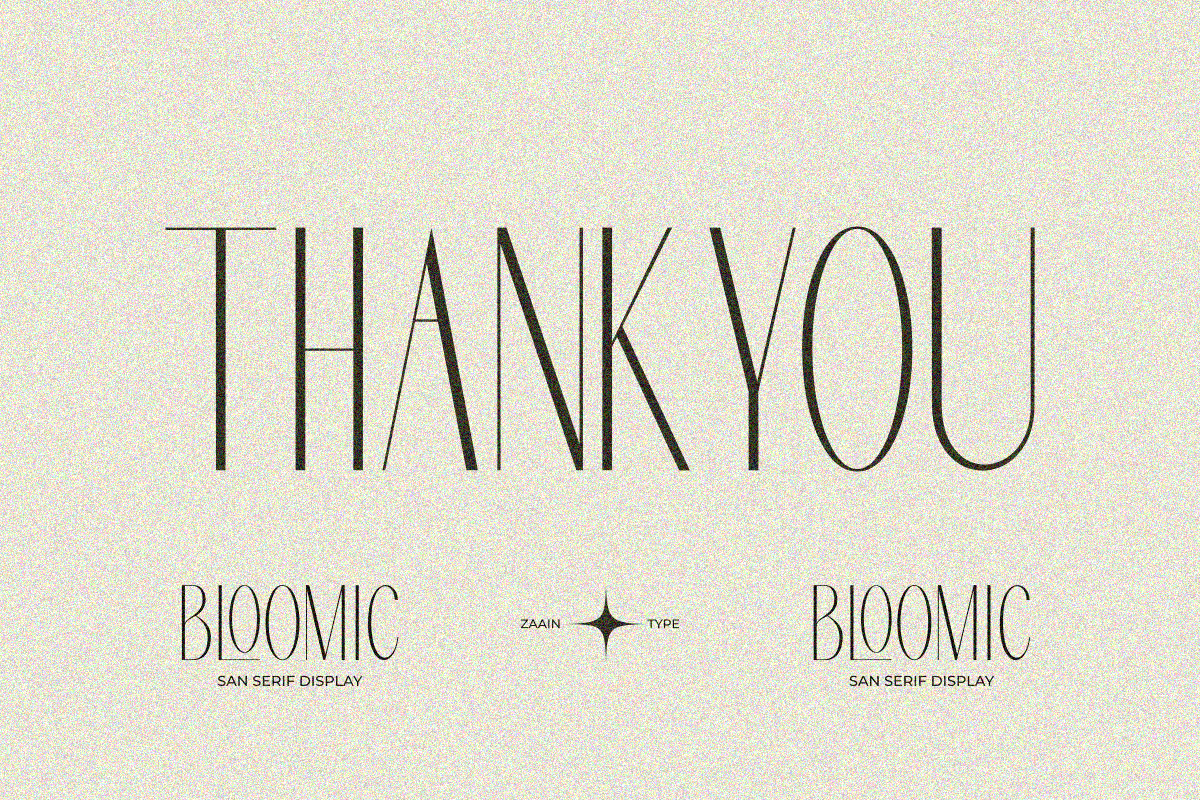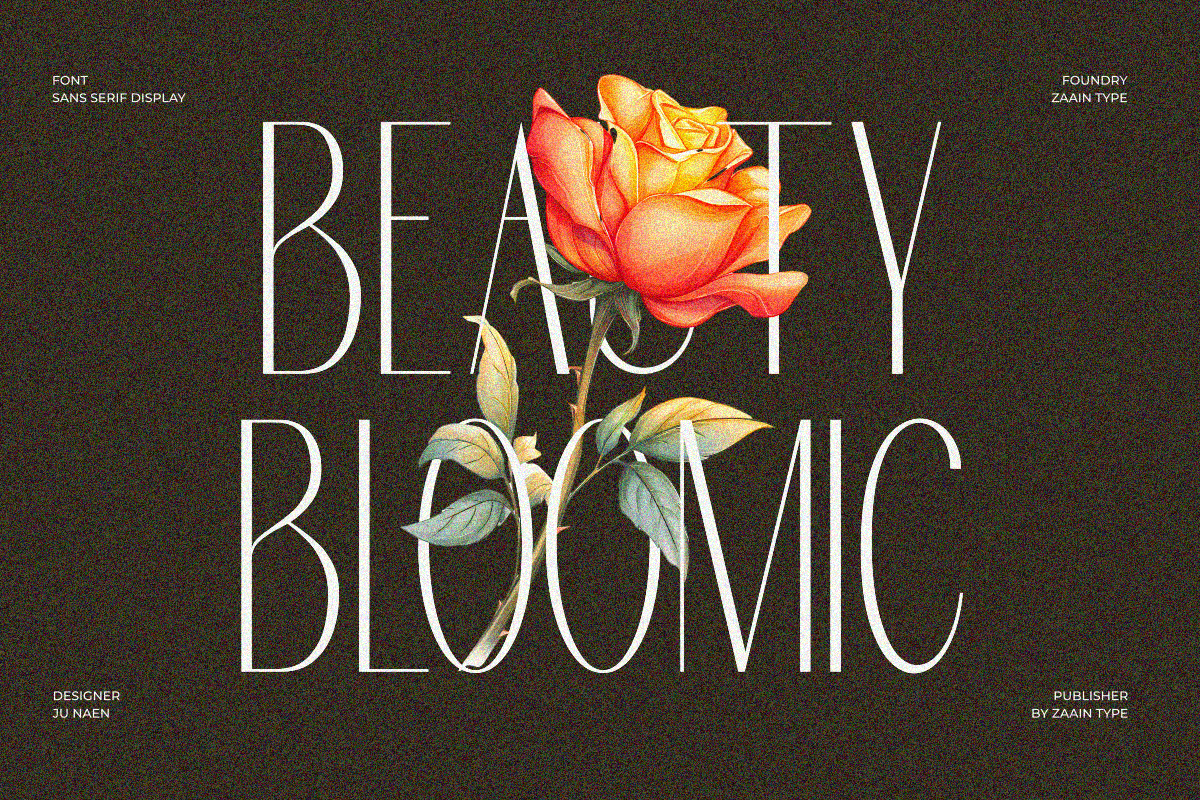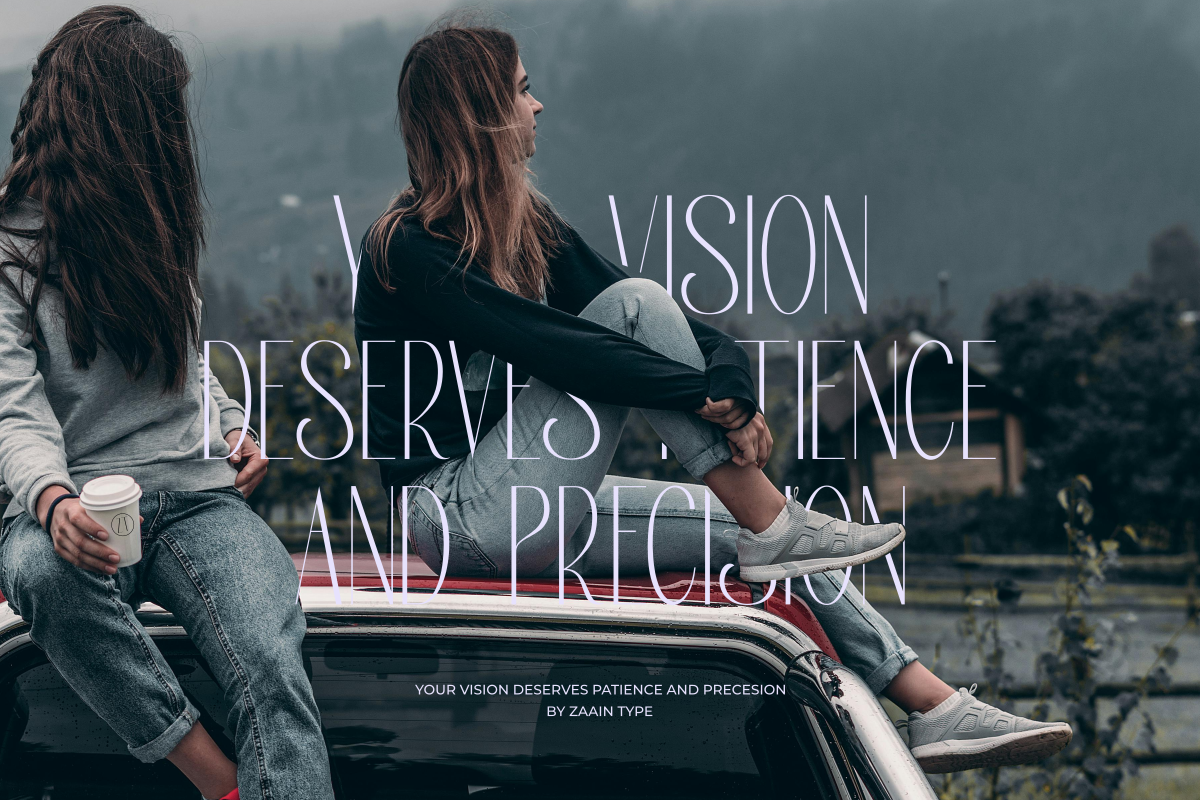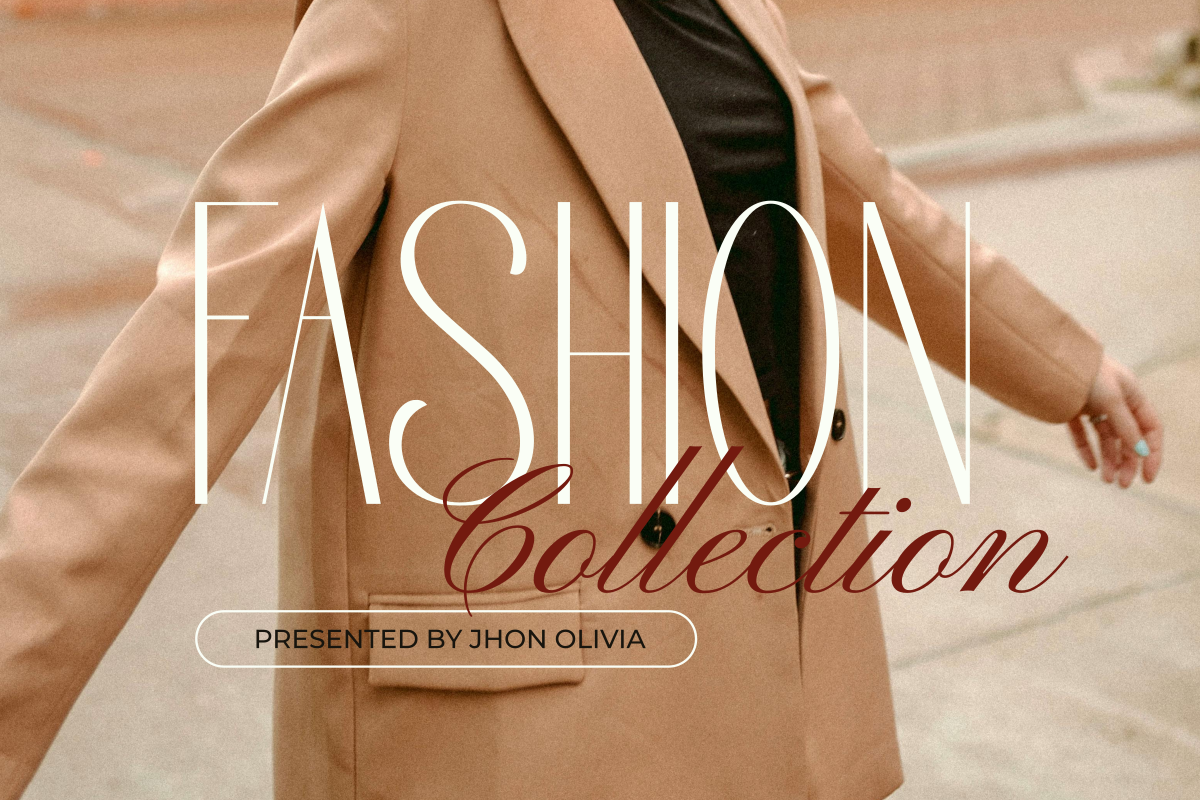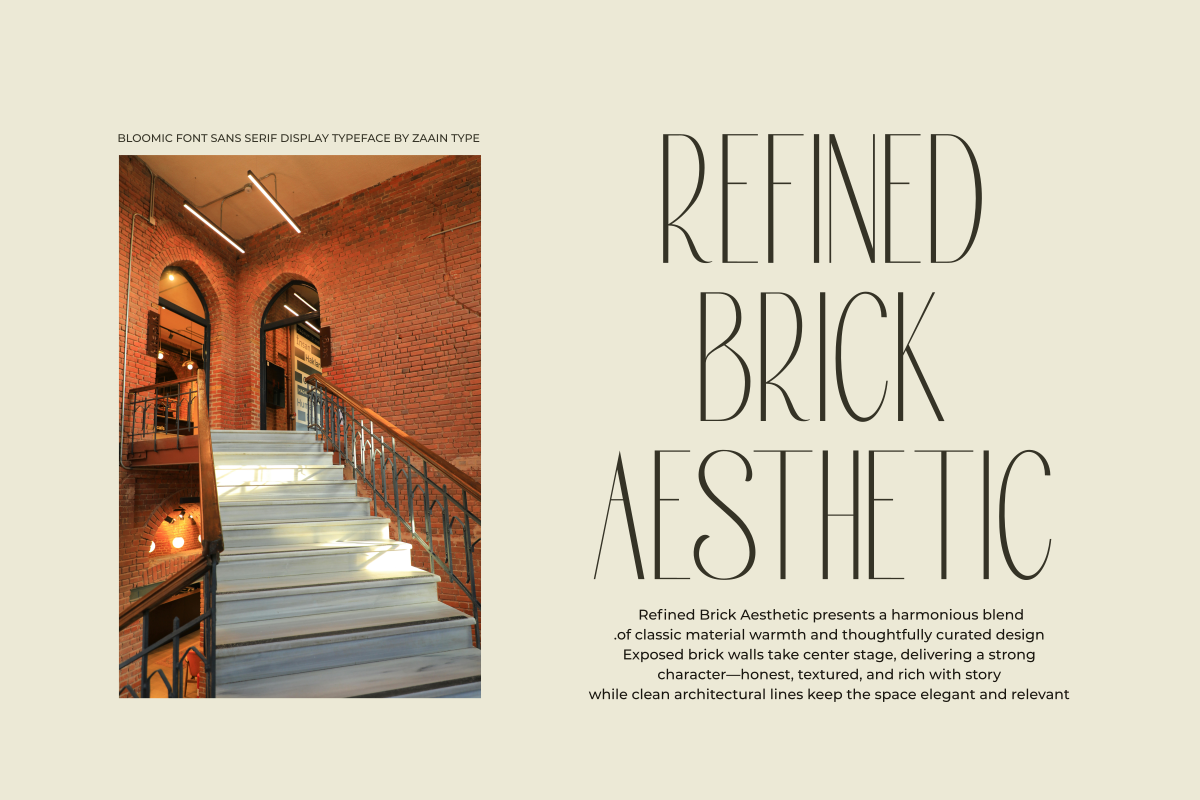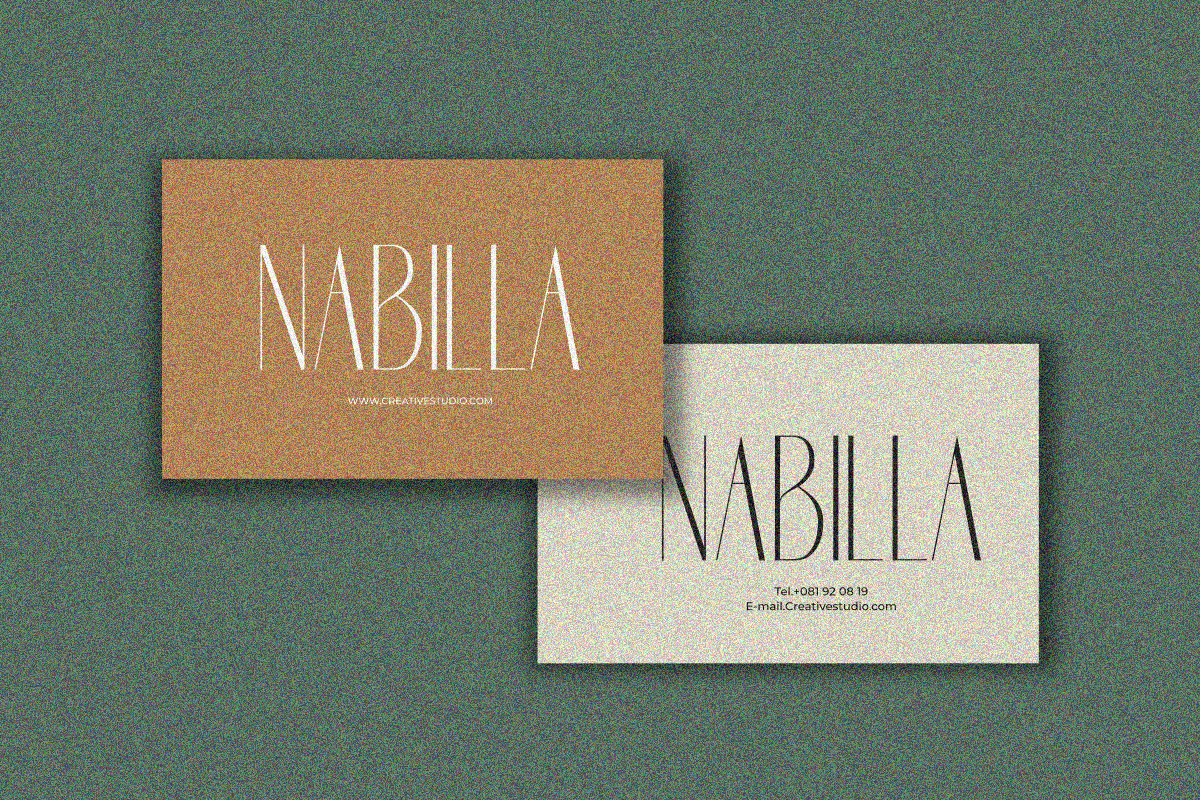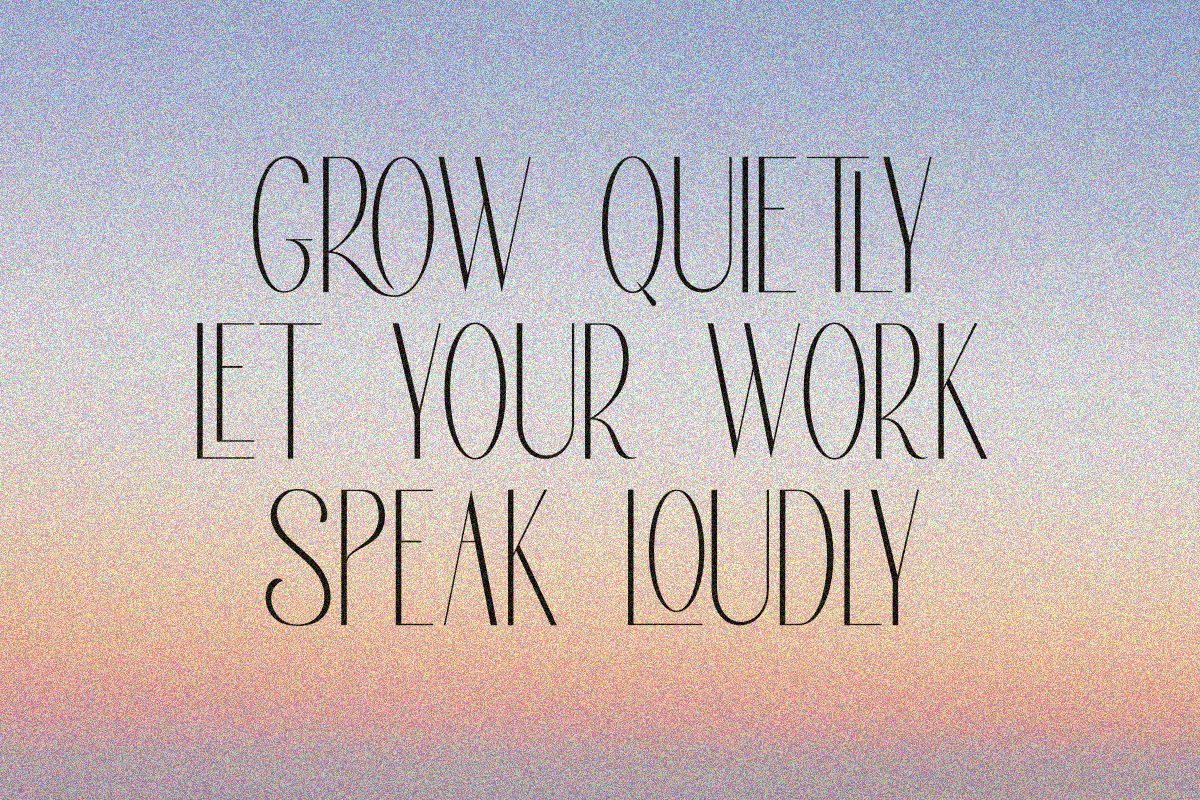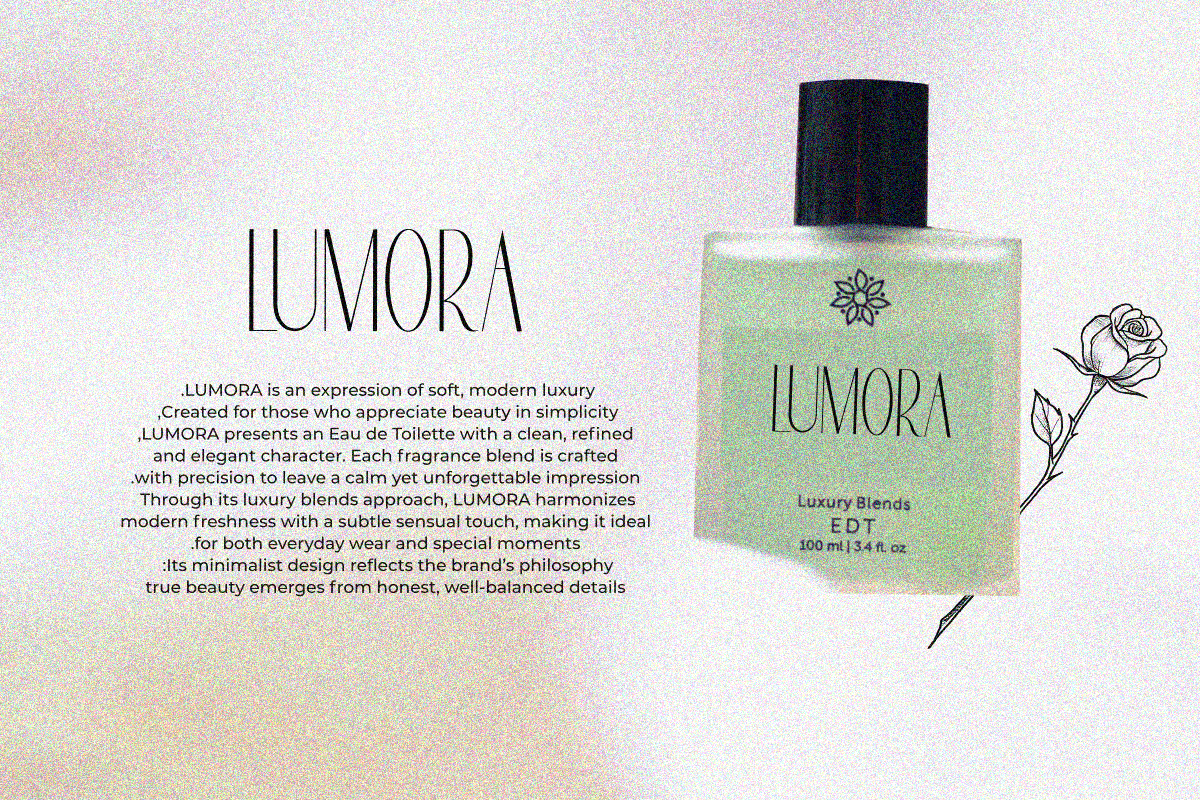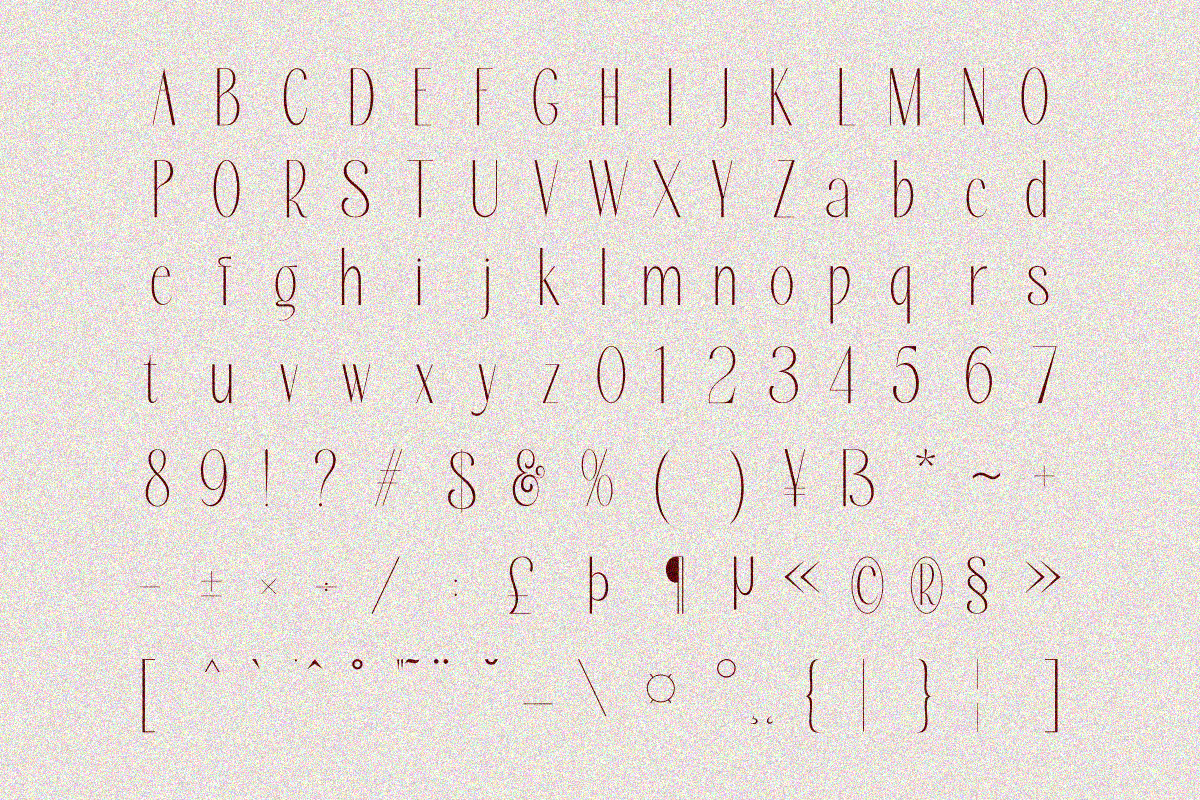
Bloomic
Bloomic is a typeface that radiates a fresh, elegant, and character-rich presence. Designed with balanced proportions and refined details, Bloomic blends classic sophistication with a clean modern touch. Each letter feels lively—soft yet confident—creating a visual rhythm that is both comfortable to read and visually engaging.
This font is perfectly suited for branding, fashion, cosmetics, editorial design, product packaging, and striking headlines that require a refined and upscale feel. Bloomic carries a sense of blooming—growth, freshness, and bold expression—making it an ideal choice for designs that aim to appear modern, stylish, and timeless